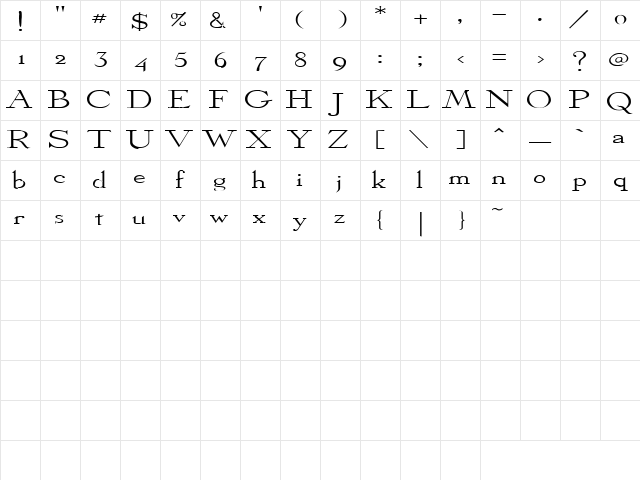
Pandora's Box 2 Regular
Design Context for Pandora's Box 2
Pandora's Box 2 is a composed and adaptable typeface that performs quietly and consistently across a wide range of design contexts.